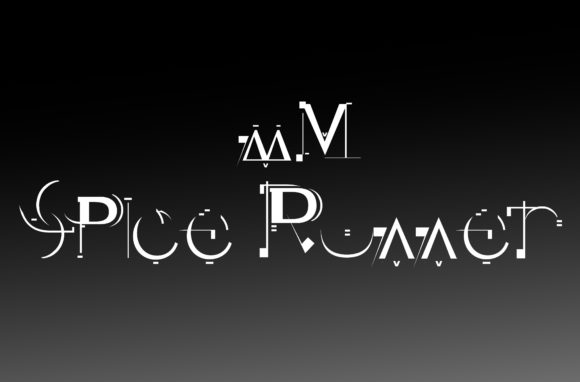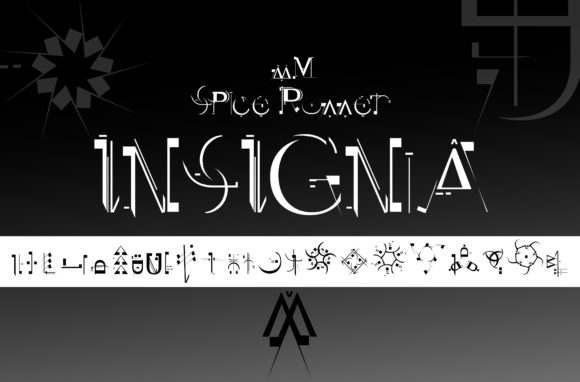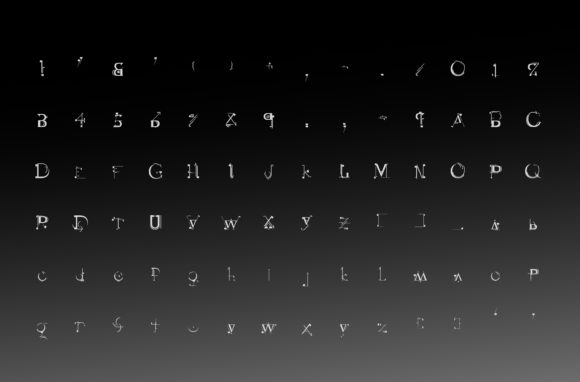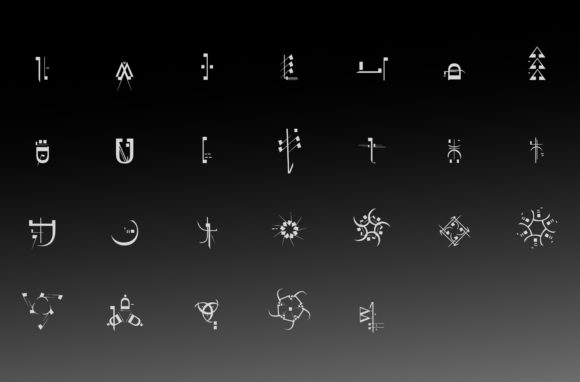
MM Spice Runner Font
About the MM Spice Runner Font
Explore the possibilities with MM Spice Runner Font, a font that offers both beauty and functionality. MM Spice Runner is a futuristic display font, featuring a decorative alphabet and a collection of insignia. Inspired by sci-fi movies, space travel, and gritty wild west is a great option for your creative projects that dream of faraway galaxies.
MM Spice Runner excels in headline treatments, logos, and short, impactful text for posters and packaging. Its strong, decorative forms command attention but are less suitable for body copy or UI elements where readability over long stretches is paramount. The intricate details might become overwhelming in smaller sizes or continuous text.
The font’s personality is bold and futuristic, with a hint of rebellious grit. It works best for brands projecting innovation, adventure, or a strong, independent identity. Think science fiction, space exploration, or technology companies seeking a distinctive visual identity.
Consider pairing it with a clean sans-serif like Open Sans for body text to balance its complexity, or a geometric sans-serif for a more unified modern aesthetic. A contrasting serif like Playfair Display could add a touch of classic elegance, while a handwritten script font might offer a touch of unexpected personality for specific applications.